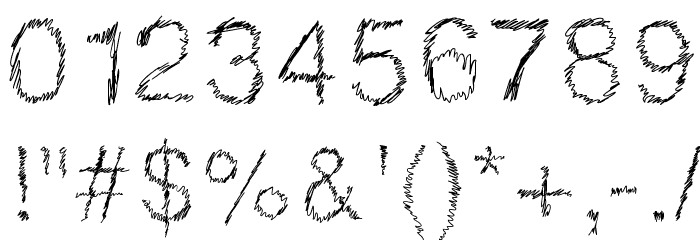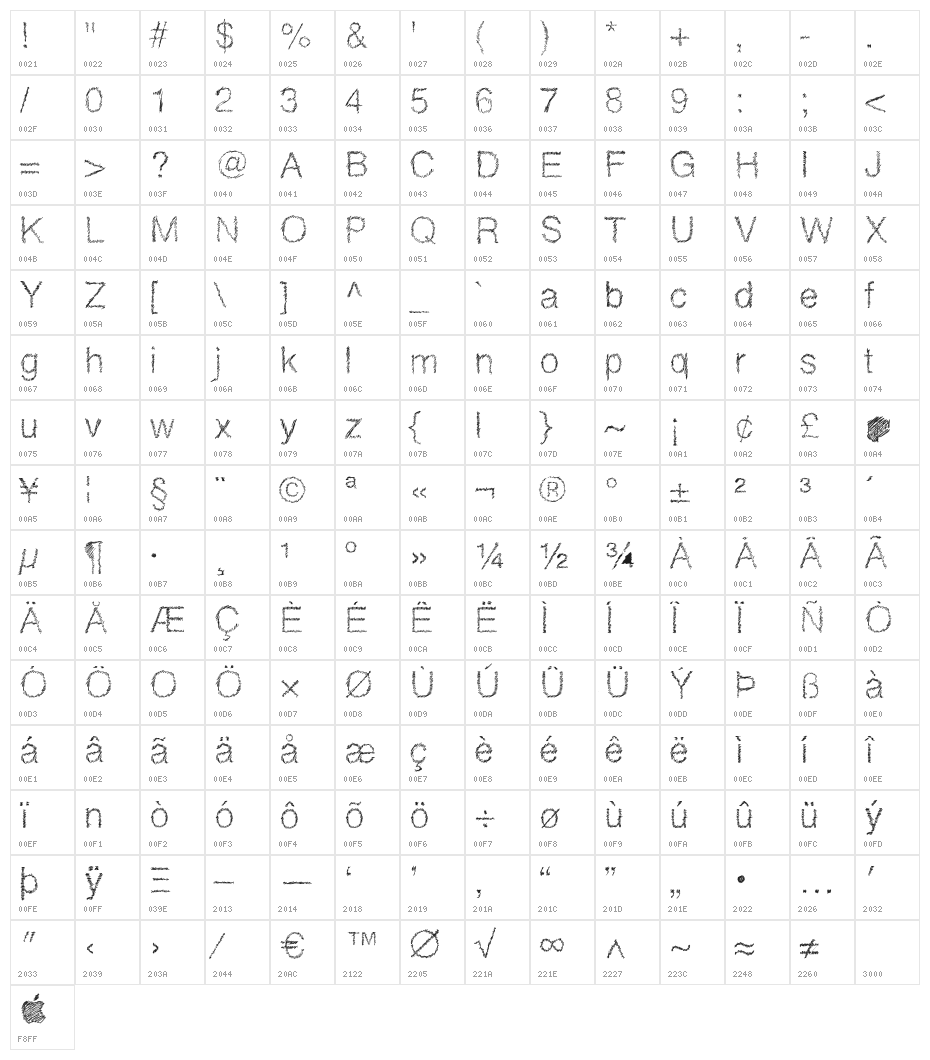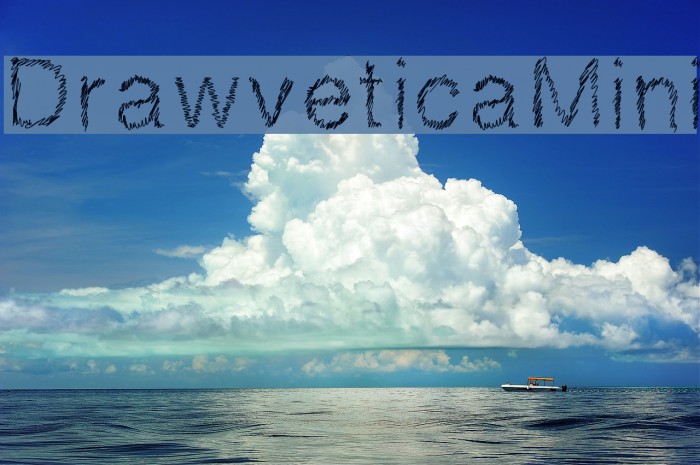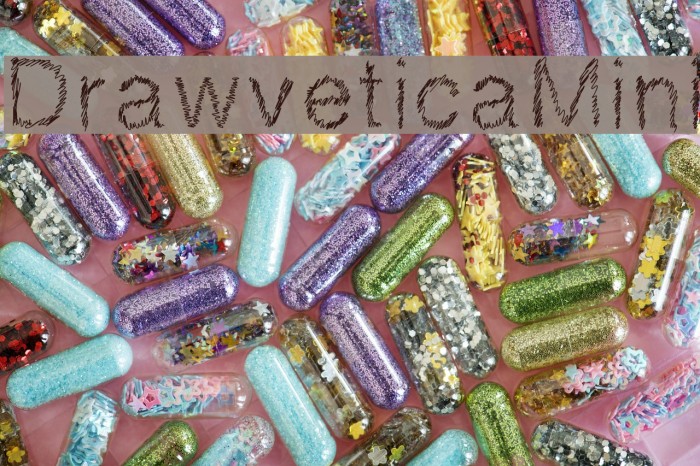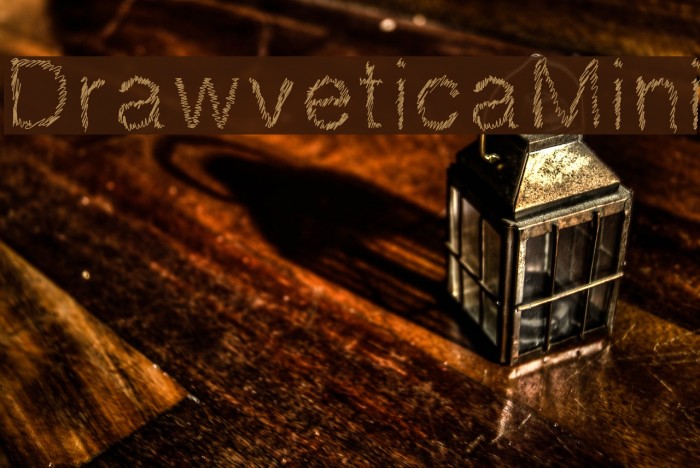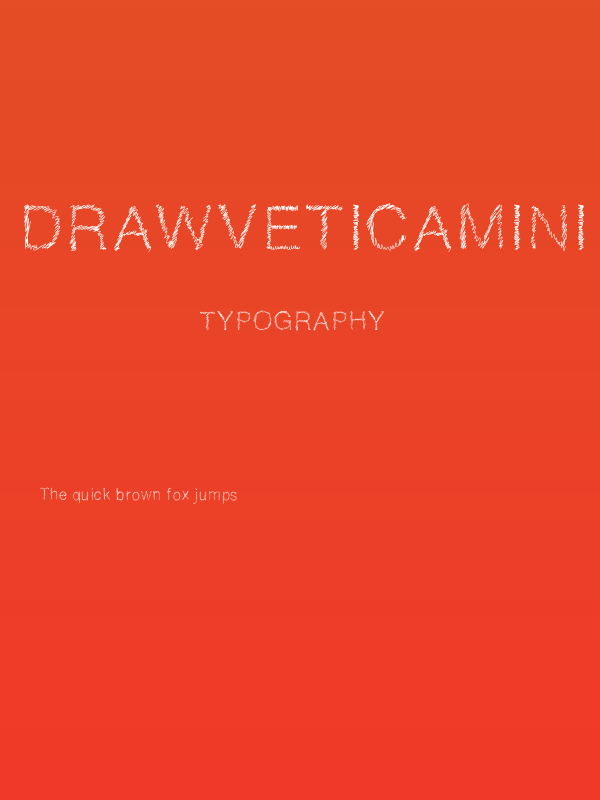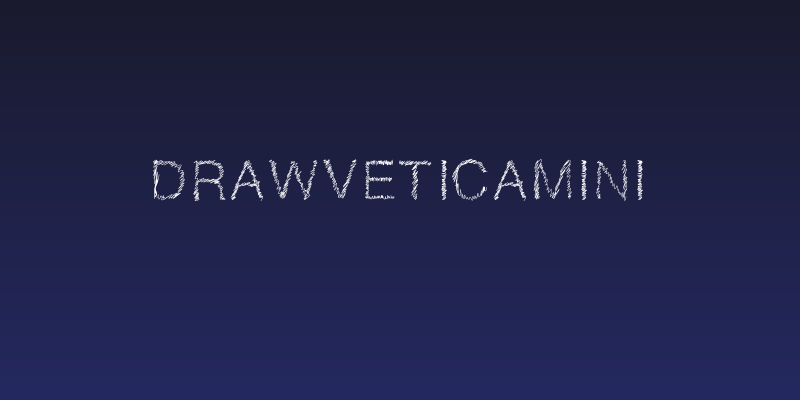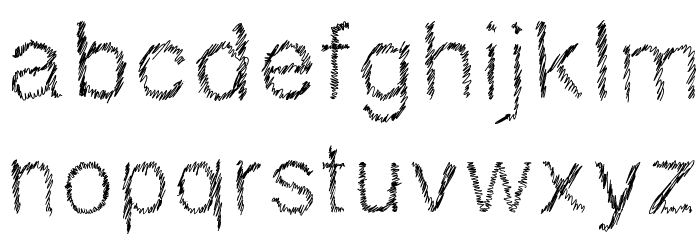
DrawveticaMini Font
DrawveticaMini Description
This font features a unique, sketch-like appearance with a hand-drawn quality. Each character is composed of irregular, jagged lines that give it a dynamic and textured look. The uppercase and lowercase letters maintain a consistent style, with a playful yet slightly chaotic aesthetic. Numbers and special characters follow the same design, ensuring a cohesive appearance across all glyphs. The font's distinctive style makes it stand out, offering a creative and artistic flair that can add personality to any project.
| Overall Style | Artistic, Playful |
| Proposed Projects | Ideal for artistic projects, creative branding, children's book illustrations, and playful graphic design. |